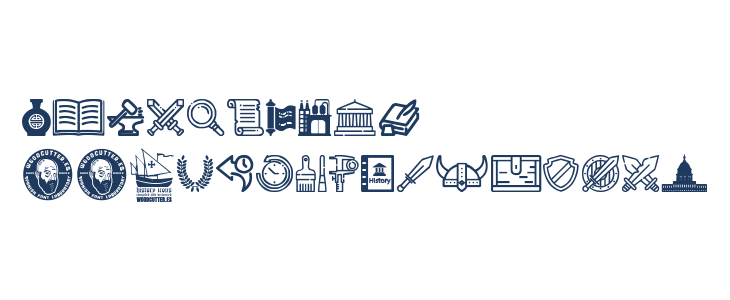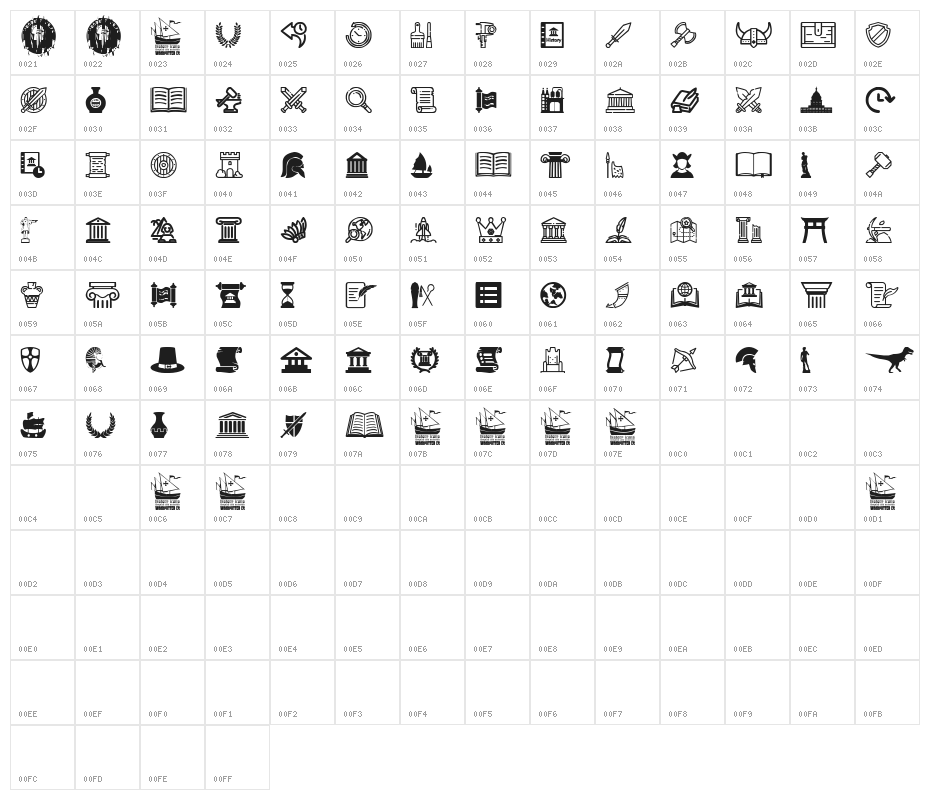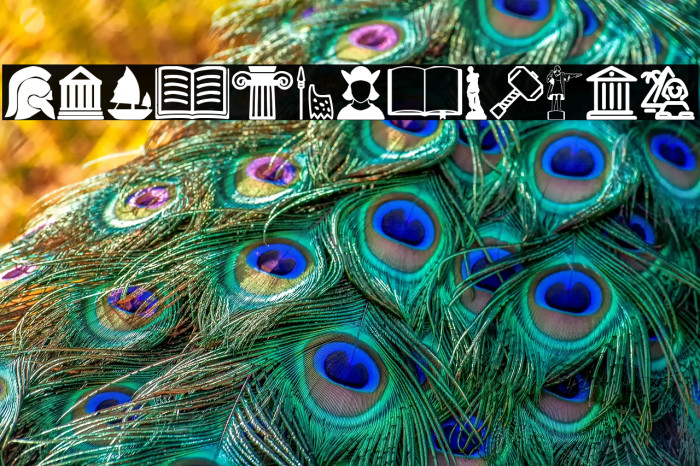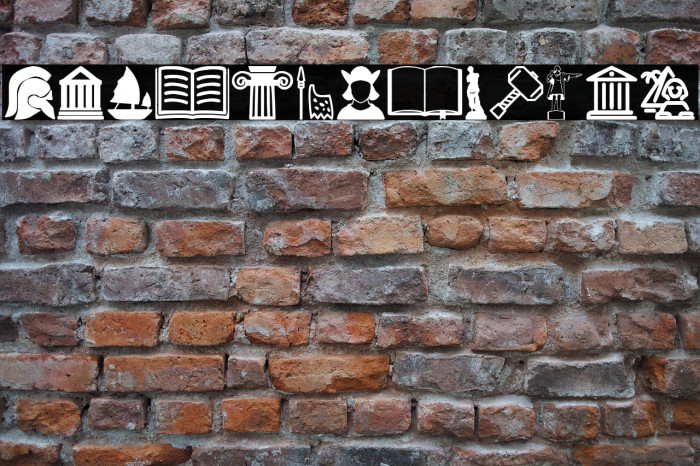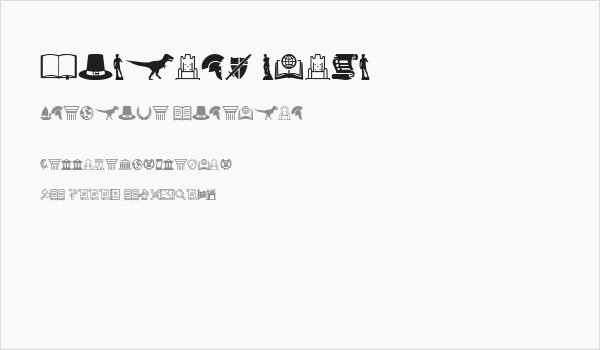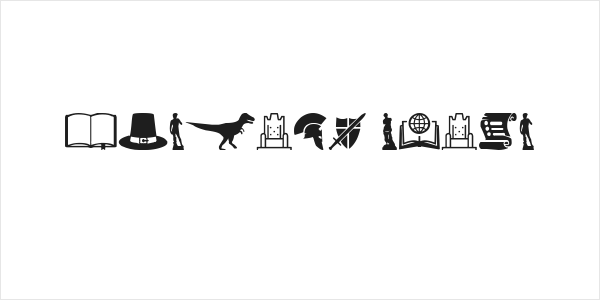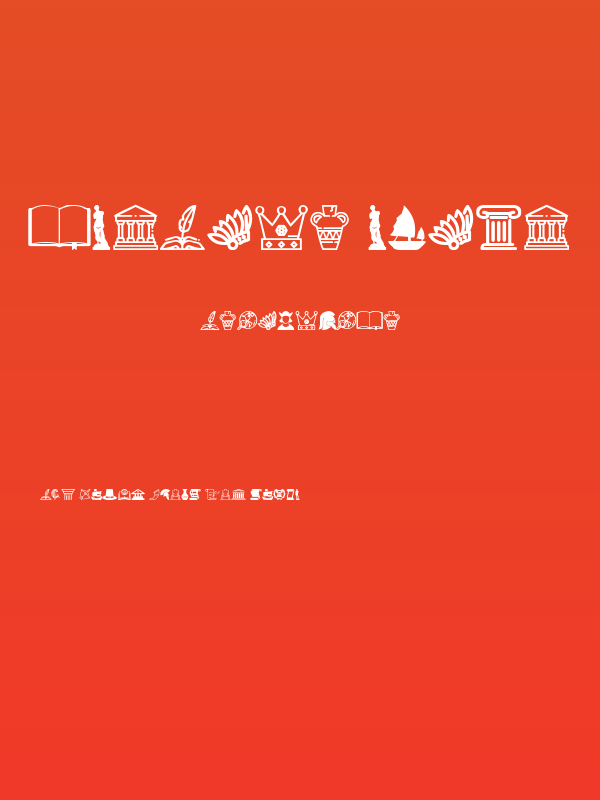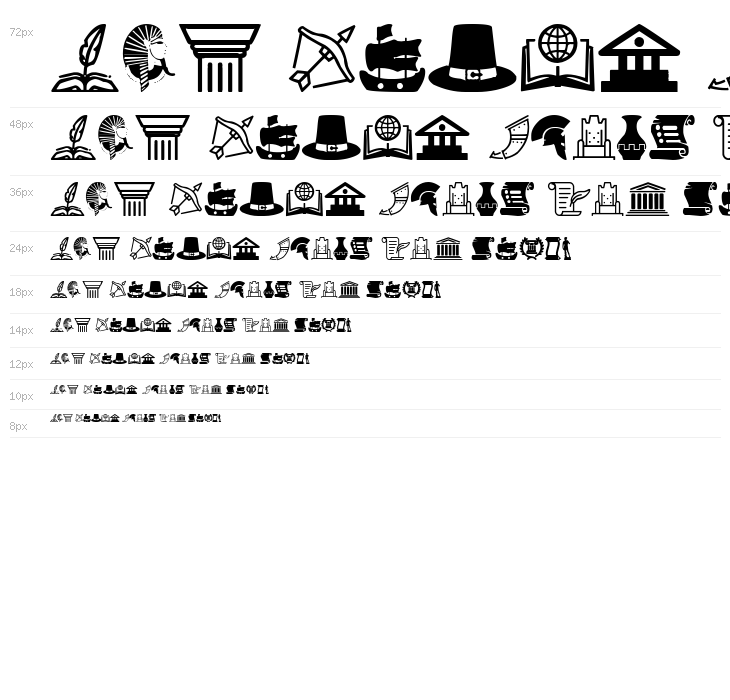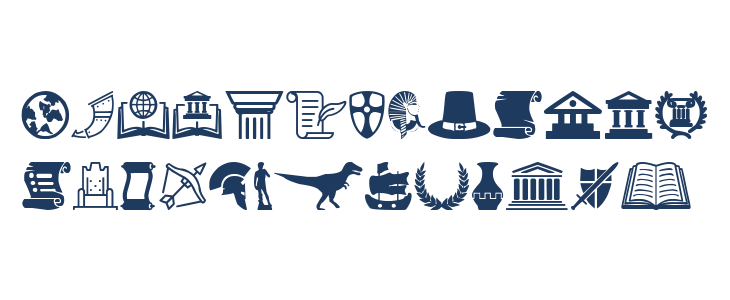
History Icons Font
History Icons Description
This collection of icons is a visually engaging representation of historical themes and elements. Each icon is crafted with a high level of detail, capturing various historical symbols such as ancient architecture, artifacts, and figures. The icons are bold and clear, making them suitable for a variety of design applications. The style is consistent throughout, with a focus on simplicity and recognizability, ensuring that each icon is easily identifiable. The set includes a diverse range of symbols from different historical periods, offering a comprehensive toolkit for projects related to history, education, or cultural heritage.
| Use Case | Logos, Educational materials, Cultural projects |
| Proposed Projects | These icons are perfect for educational materials, museum exhibits, historical documentaries, and cultural heritage websites. |